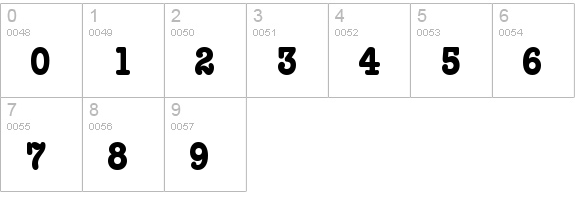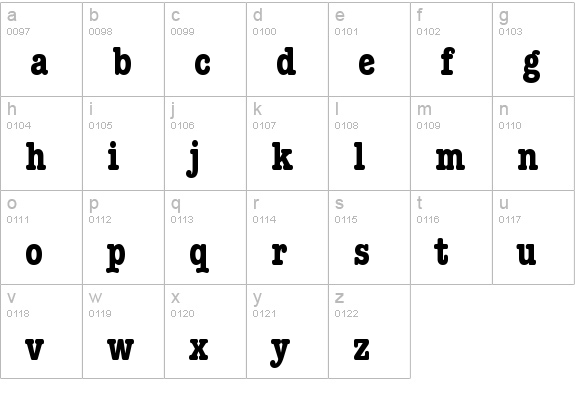
Keyboard CondensedAlt SSi Bold Condensed Alternate is a strong, high-contrast, condensed-width variant in the Keyboard typeface family \xE2\x80\x94 well suited to headlines, attention-grabbing titles, and strong calls-to-action.
Keyboard CondensedAlt SSi Bold Condensed Alternate font is a sleek and stylish typeface that is perfect for adding a touch of modernity to any design project. With its condensed and bold alternate characters, this font is sure to make a statement and grab attention. The Keyboard CondensedAlt SSi Bold Condensed Alternate font is ideal for headlines, titles, logos, and any other text that needs to stand out. Its clean and legible design ensures that your message will be easily understood, while its condensed form allows for maximum impact in limited space. One of the best things about this font is that it is available for free. You can easily download it from FontsMarket.com, making it a cost-effective choice for both personal and commercial use. Whether you are a designer, a business owner, or simply someone who appreciates beautiful typography, the Keyboard CondensedAlt SSi Bold Condensed Alternate font is a must-have in your font collection. So why wait? Enhance your designs with the modern and eye-catching Keyboard CondensedAlt SSi Bold Condensed Alternate font today. Download it for free at FontsMarket.com and unleash your creativity.